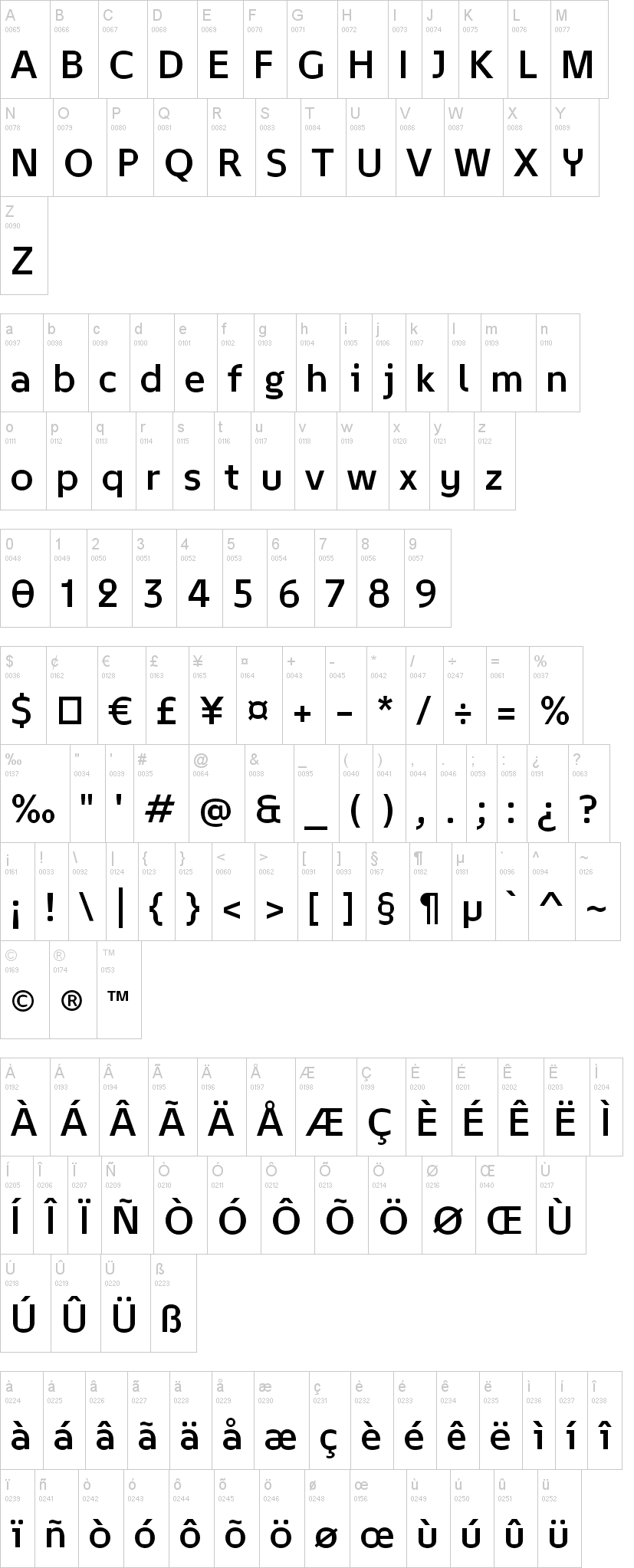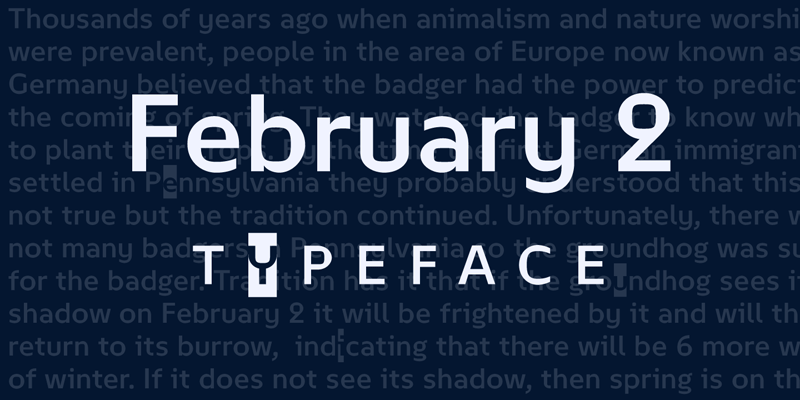
February 2 - Initials (Personal use).otfNote of the authorThe font of February 2 was developed on the experimental principle of grotesque, combining the contrast between an oval and a rounded rectangle. The font is designed in two styles: normal and initials.